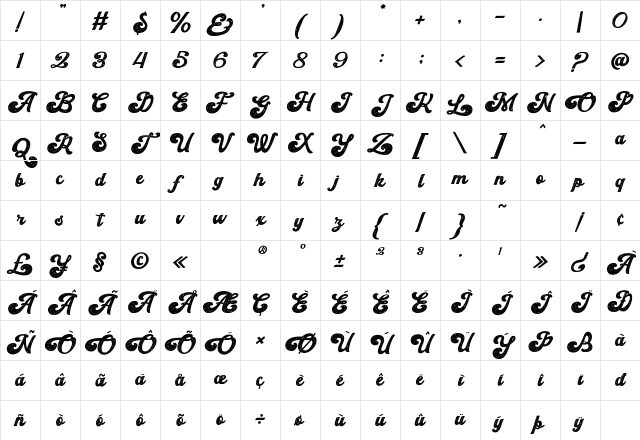
Huron Texture Regular
Foundry: Putracetol Studio, Karanganyar.
Designer: Putra Novembria Candra Kusuma
Design Context for Huron Texture
Huron Texture embraces imperfection - its rough, textured character adds raw authenticity to designs that want to feel lived-in and unconventional.
Pro Tip: Use Huron Texture at larger sizes where the texture and irregularity of each letterform can be clearly seen - it loses its character at small sizes.